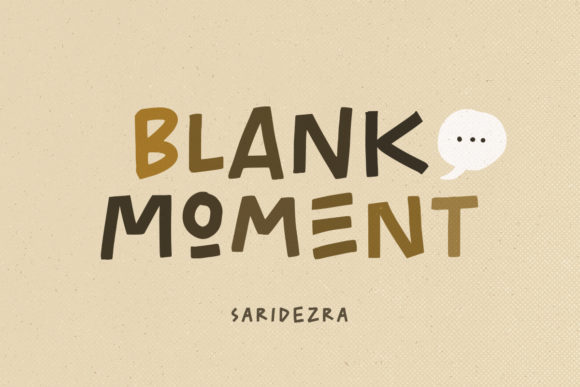
The Blank Moment Font: A Cute Handwritten Delight for Designers
Have you ever been in the middle of a design project, and suddenly, you’re stuck on finding the perfect font? I recall a recent experience where a client asked for a unique, handwritten look for their branding, and I was on a mission to find the ideal match. That’s when I stumbled upon the Blank Moment font, a cute handwritten font that instantly captured my attention. In this article, I’ll share my journey with this charming font, its features, and how to make the most of it in your design projects.
A Personal Encounter with Blank Moment
I was working on a branding project for a small business, and the client wanted a font that was playful, yet professional. I scoured through my font library, but nothing seemed to fit the bill. That’s when I discovered Blank Moment, a beautiful handwritten font that seemed tailor-made for the project. Its unique character and charm won me over, and I knew I had to share it with fellow designers and creative hobbyists.
An Honest Review of Blank Moment
So, what makes Blank Moment special? Here are some of the things I love about this font:
• ✨ Unique and playful character: Blank Moment has a distinct handwritten feel that’s perfect for designs that require a personal touch.
• ✅ Easy to read: Despite its playful nature, Blank Moment is surprisingly legible, making it suitable for body text and headings.
• 💫 Highly versatile: This font can be used for a wide range of design projects, from branding and packaging to social media graphics and crafts.
Of course, no font is perfect, and Blank Moment has a few quirks:
• 🤔 Limited language support: As with many handwritten fonts, Blank Moment may not support all languages or special characters.
• ⚠️ Occasional kerning issues: Like many digital fonts, Blank Moment may require manual kerning adjustments to ensure optimal spacing.
The Story Behind Blank Moment
According to its designer, Blank Moment was inspired by the imperfections and quirks of handwritten writing. The goal was to create a font that was both playful and professional, with a unique character that would stand out in any design.
Font Name Blank Moment Font
Author saridezra
What is the best use for Blank Moment? Blank Moment is perfect for designs that require a unique, handwritten look, such as branding, packaging, and social media graphics.
Is Blank Moment suitable for body text? While Blank Moment is legible, it’s best suited for headings and titles. For body text, you may want to choose a more traditional font.